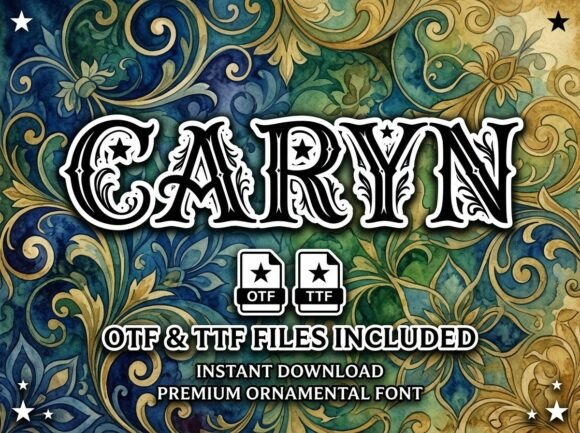
Discover the Stunning Caryn Font: Elevate Your Designs with a Unique Artistic Touch
Have you ever been in the middle of a design project, scrolling through font after font, trying to find that perfect match? I recall a particularly frustrating experience while working on a logo design for a boutique client. I wanted a font that was bold, artistic, and would make a statement. That’s when I stumbled upon the Caryn Font. This decorative display font has been a game-changer for me, and I’m excited to share its features, benefits, and uses with you.
A Personal Encounter with Caryn Font
The moment I laid eyes on Caryn Font, I knew it was something special. Its unique artistic elements and strong visual personality immediately caught my attention. I was working on a project that required a font that could stand out, and Caryn Font fit the bill perfectly. Its versatility has allowed me to use it for bold headlines, artistic logos, and creative packaging, always maintaining a professional and polished finish.
An Honest Review of Caryn Font
What I Love About Caryn Font ✨
• ✅ Unique and artistic design that’s perfect for making a statement
• ✅ Versatile enough for various design projects, from bold headlines to creative packaging
• ✅ Professional and polished finish, despite its decorative nature
One thing to note is that Caryn Font is an ALL-CAPS (Uppercase Only) display typeface. This means it doesn’t include lowercase letters, which might be a limitation for some projects. However, this design choice allows for every letter to be a work of art, making it ideal for high-impact headlines, logos, and decorative initials.
One of the advantages of Caryn Font is its OpenType features. These features allow for advanced typographic control, including:
• Stylistic alternates for varied letterforms
• Glyphs for adding decorative elements to your text
By exploring these features, you can unlock the full creative potential of Caryn Font and make your designs truly unique.
The Backstory of Caryn Font
Caryn Font was designed with the intention of creating a unique and artistic display font that would allow designers to add a touch of elegance and sophistication to their work. The font’s creator aimed to craft a typeface that would be both versatile and visually striking, making it perfect for a wide range of design applications.
Q: Is Caryn Font suitable for body text?
A: No, Caryn Font is designed specifically for display purposes, such as headlines, logos, and decorative initials. Its artistic nature makes it less suitable for body text.